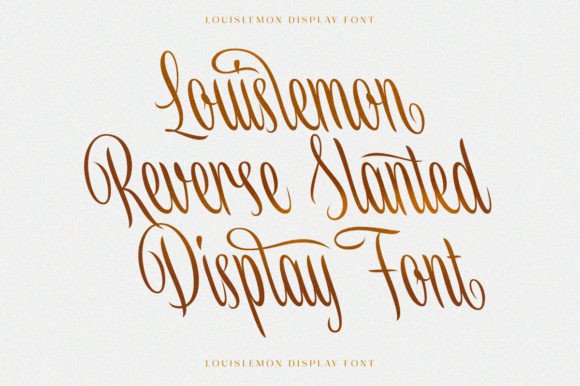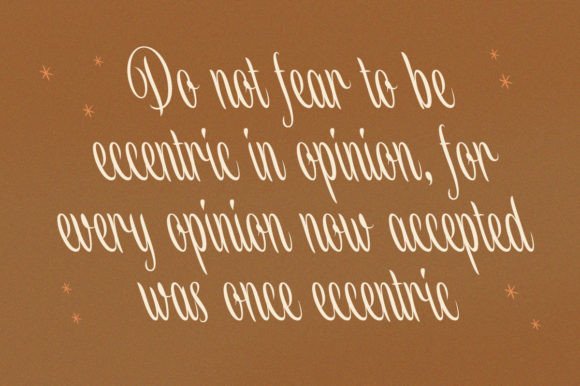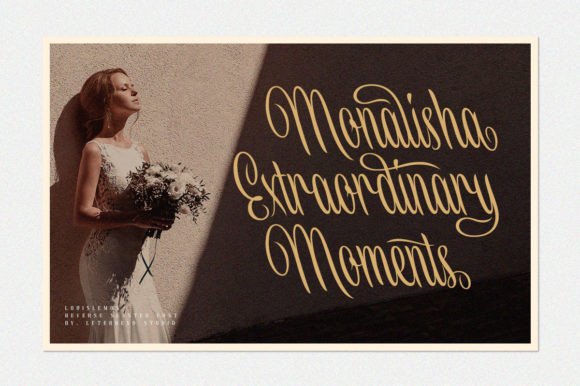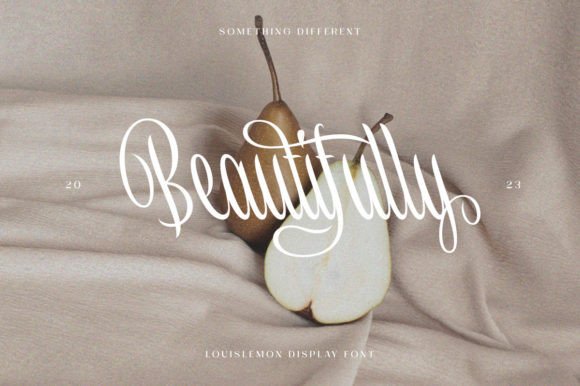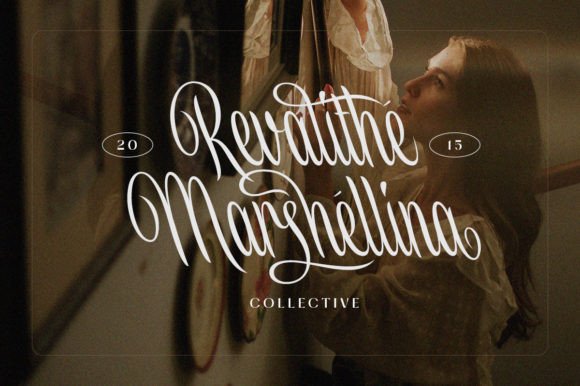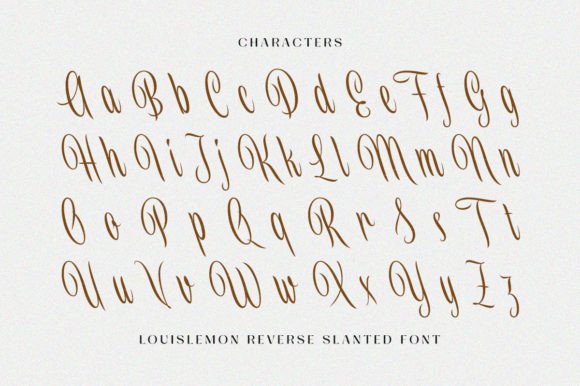
Introduction to Louislemon Font
Have you ever been in the middle of a creative project, pouring your heart and soul into a design, only to be stopped dead in your tracks by the perfect font? For designers, finding that elusive perfect font can be the difference between a good design and a great one. It’s that one element that brings everything together and makes your design truly shine.
That’s where Louislemon Font comes in – a high-quality display script with a reverse slant style that’s sure to take your designs to the next level. With its incredibly versatile style, you’ll be able to create spectacular designs that are sure to impress. And the best part? Louislemon Font is available for free download, making it an invaluable design resource for any creative project.
Key Features of Louislemon Font
- High-quality font design suitable for various creative projects.
- Includes a large character set with over 1000 glyphs, making it perfect for multilingual projects.
- Unique, hand-drawn style that adds a touch of elegance to any design project.
Honest Review: Louislemon Font
I recently stumbled upon the Louislemon Font while searching for a high quality, free download for my creative project. I was immediately drawn to its elegant and sophisticated design, which I think would be perfect for any design resource looking to add a touch of class.
What works well: ✨ The Louislemon Font is incredibly versatile and can be used for a wide range of applications, from headings to body text. It also features a transparent background, making it easy to layer over other design elements. The font is also highly customizable, allowing users to adjust the size, color, and style to suit their needs.
- Wide range of applications
However, I did encounter some limitations: ⚠️ The font is not compatible with all operating systems, which could be a problem for designers working on projects that need to be accessed by users with different devices. Additionally, the font may not be as readable at very small sizes, which could be a concern for designers working on projects with limited screen real estate.
Overall, I think the Louislemon Font is a great addition to any designer’s toolkit. While it may have some limitations, its high quality and versatility make it a valuable resource for any creative project. With a little creativity and experimentation, I’m sure you’ll be able to get the most out of this fantastic font.
In PowerPoint and Word, you can use the Louislemon Font to add a touch of elegance to your presentations and documents. Simply select the font from the font menu and apply it to your text elements.
Tips for Getting the Most Out of Louislemon Font
Experiment with different font sizes, styles, and colors to create a unique look. You can also use the Louislemon Font in combination with other design elements to create a cohesive visual identity.
The Louislemon Font is perfect for a variety of creative projects, including branding, marketing materials, and editorial design. Its high-quality design makes it a great choice for any project where you want to make a lasting impression.